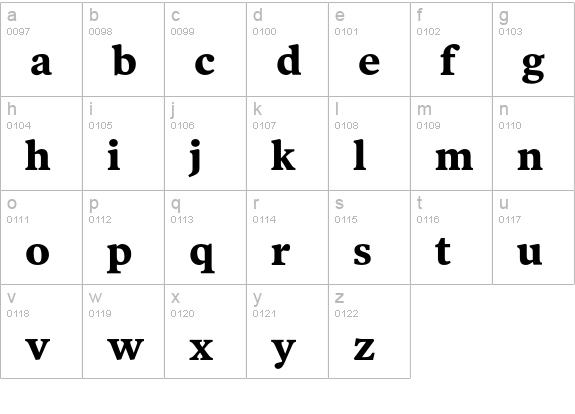
PoynterText-Bold is a strong, high-contrast variant in the PoynterText typeface family \xE2\x80\x94 well suited to headlines, attention-grabbing titles, and strong calls-to-action.
PoynterText-Bold is a striking and versatile font that exudes confidence and modernity. Its bold strokes and clean lines make it perfect for headlines, titles, and other attention-grabbing text. This font is designed to stand out and make a statement, while still maintaining readability and style. Best of all, PoynterText-Bold is available for free download at FontsMarket.com. Whether you're designing a website, creating marketing materials, or working on a branding project, this font is sure to elevate your work to the next level. Don't miss out on the opportunity to add this dynamic and eye-catching font to your collection - download PoynterText-Bold today and see the impact it can make on your designs!